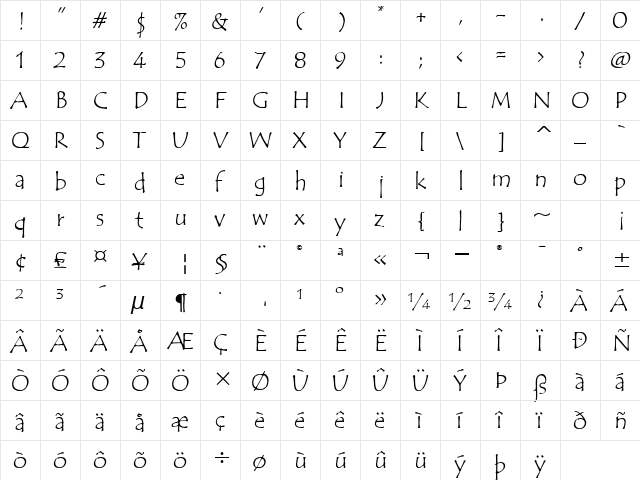
Tempus Sans ITC TT Regular
Design Context for Tempus Sans ITC TT Typeface
Tempus Sans ITC TT is a composed and adaptable typeface that performs quietly and consistently across a wide range of design contexts.